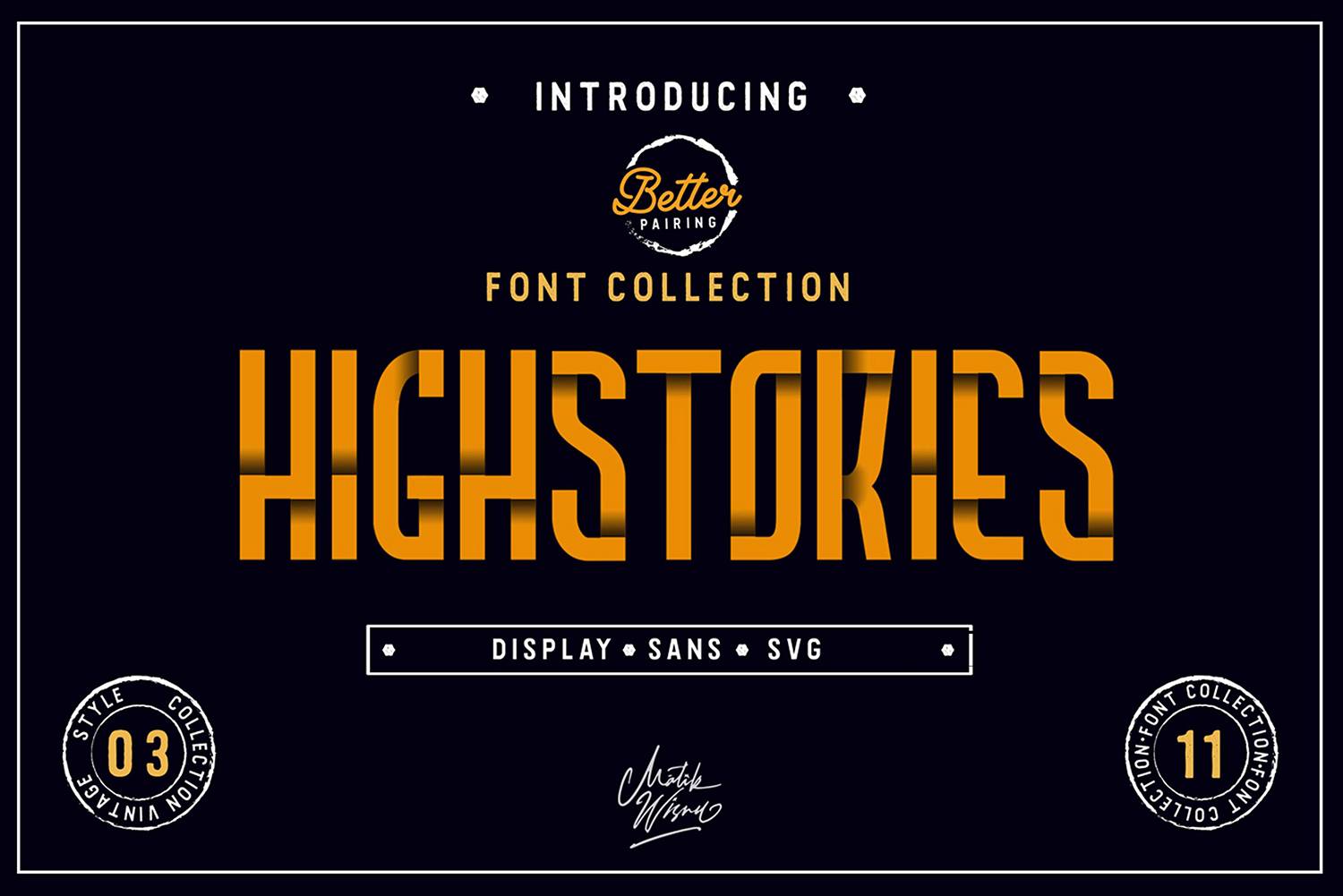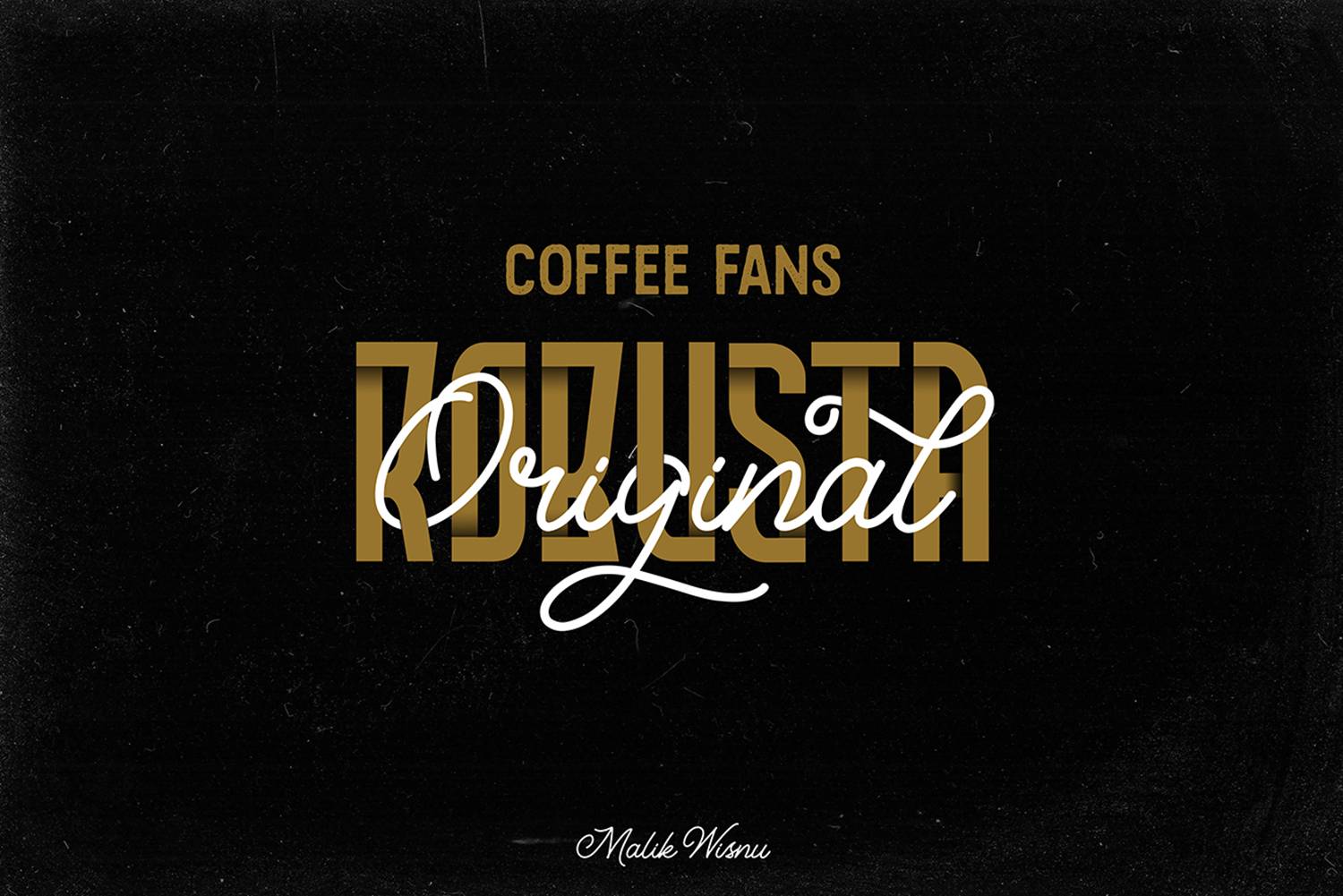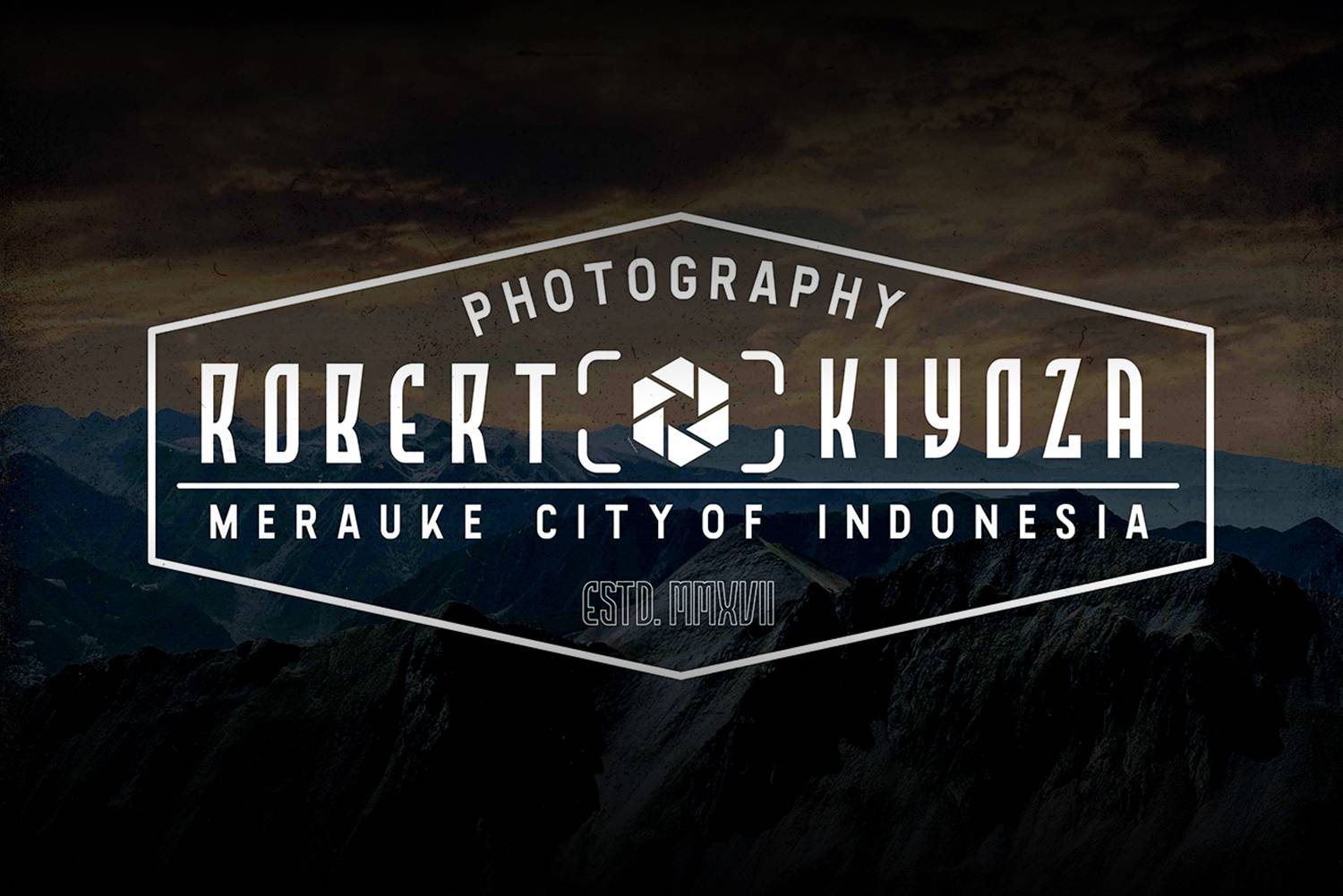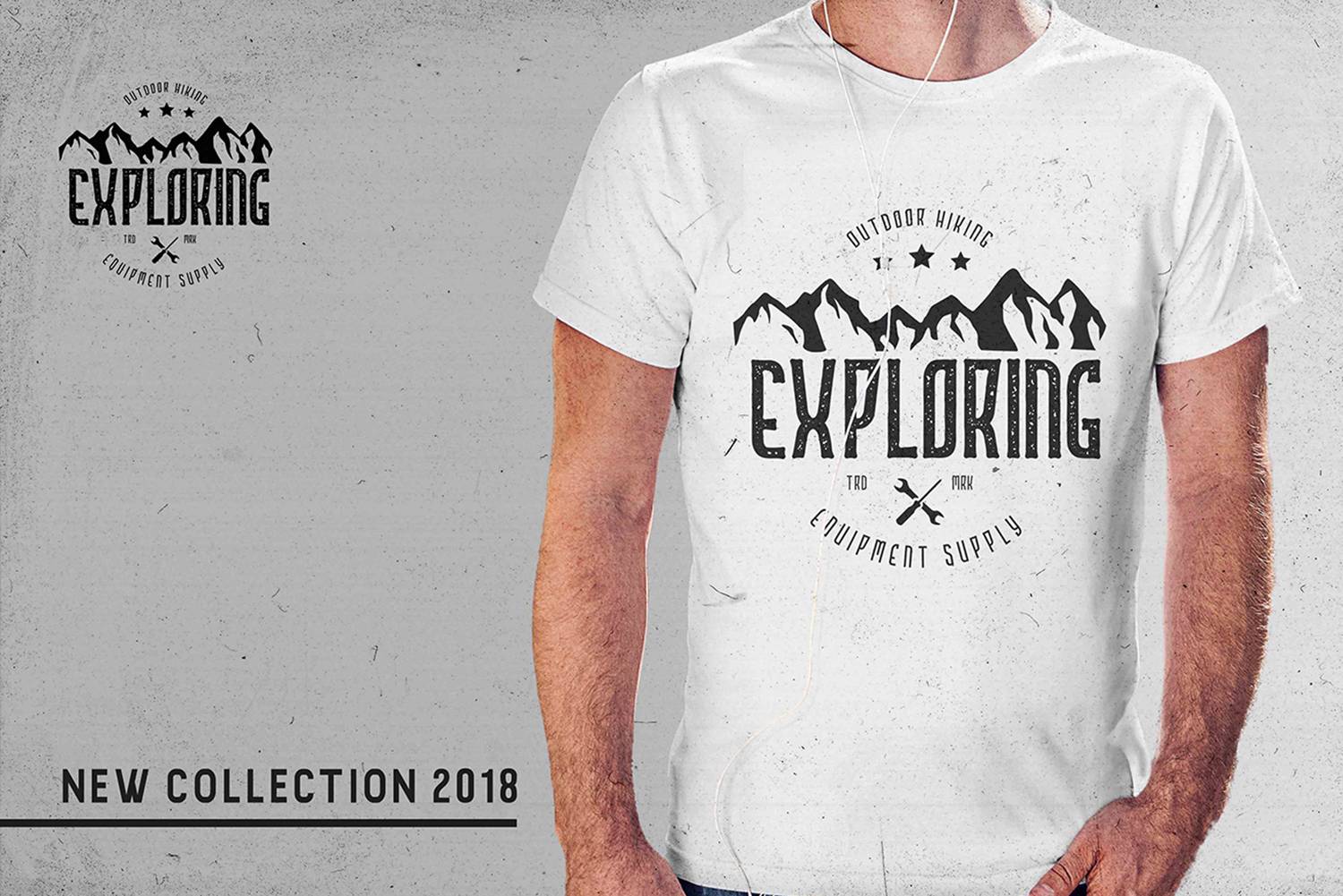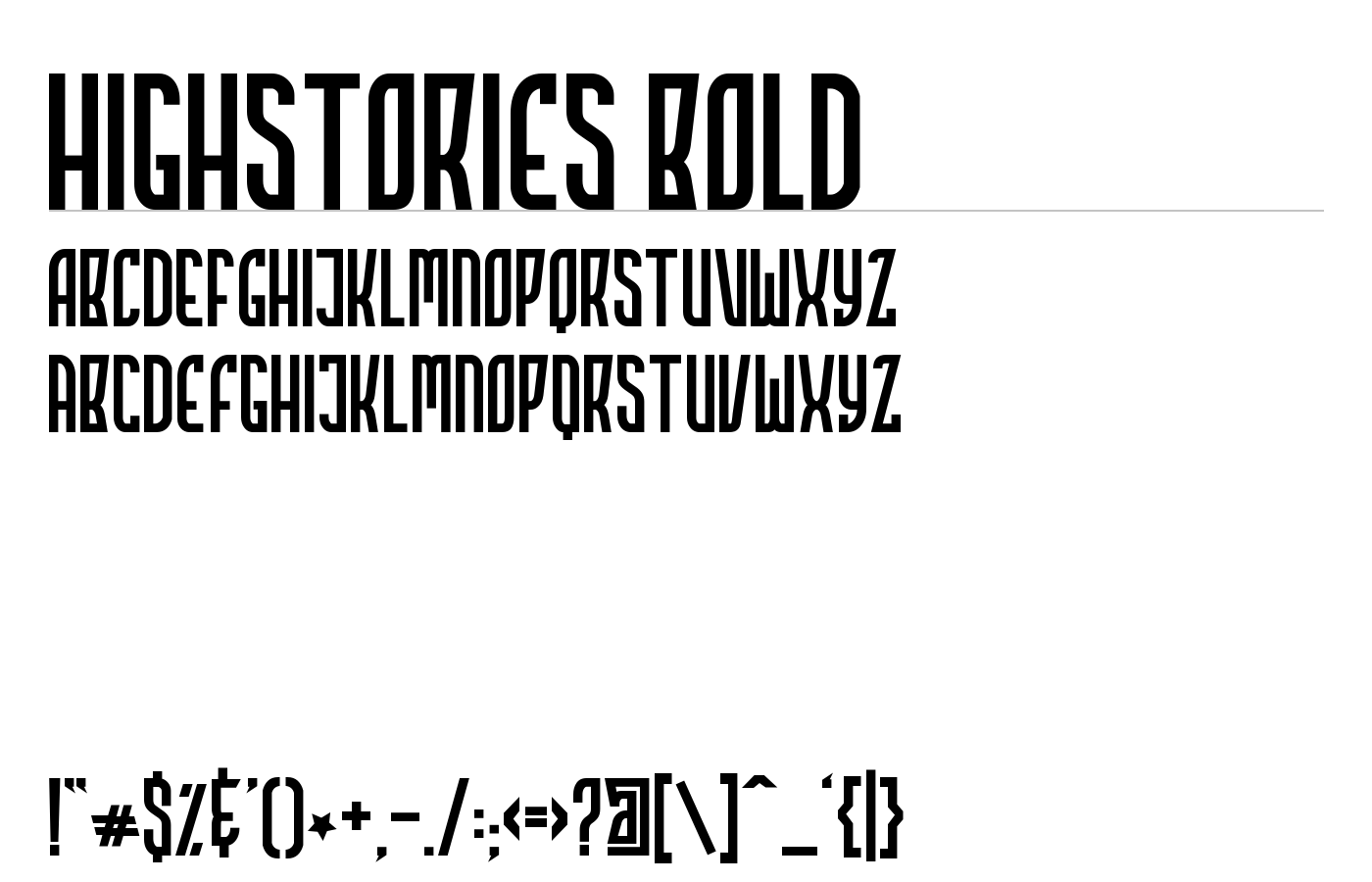
Highstories is a bold, condensed sans serif font characterized by its tall, narrow letterforms and geometric shapes that create a strong, modern appearance. Its consistent stroke weight and unique design details give it an edgy, futuristic personality, making it ideal for striking headlines, logos, and branding that demand attention. This font works best where a bold visual impact is needed, especially in fashion, editorial, or contemporary design contexts.
Highstories Font Family
About Highstories Font Family